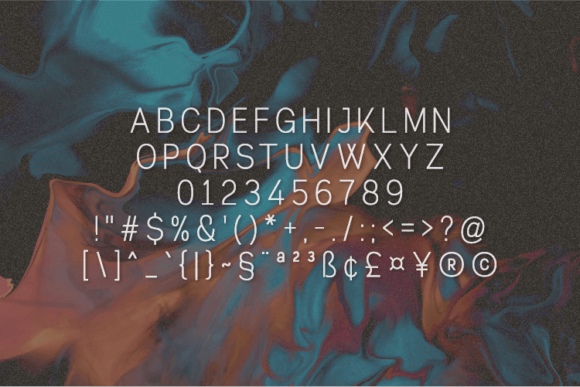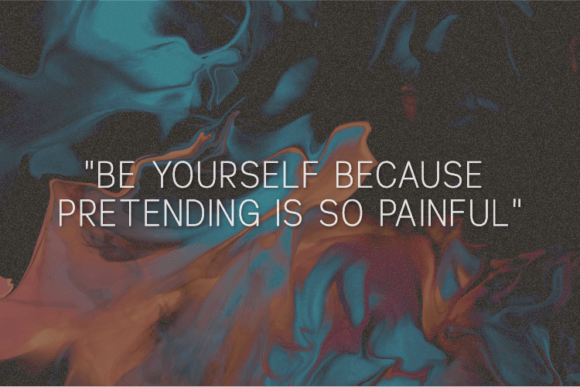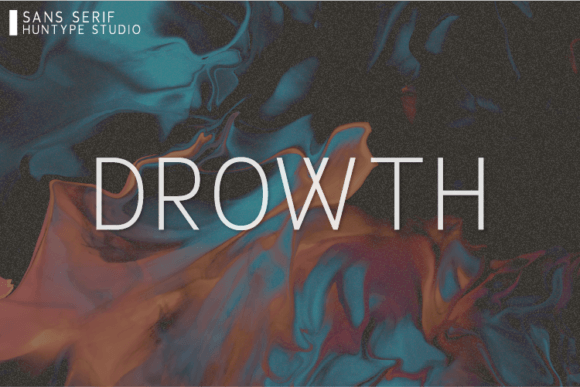
Drowth Font: The Ultimate Sans Serif for Designers and Crafters
In the world of typography, a good font can make all the difference in the success of a design project. For designers and crafters, finding the perfect font that is both versatile and visually appealing can be a daunting task. However, if you’re looking for a font that checks all the right boxes, look no further than Drowth Font. In this article, we’ll dive into the features and benefits of Drowth, and explore why it’s becoming a go-to choice for designers and crafters alike.
What is Drowth Font?
Drowth is an all-caps sans serif font that boasts a unique combination of smooth and clean lines, with just a touch of contrast. This font is designed to be highly versatile, making it suitable for a wide range of applications, from logos and branding to web headings and more. Whether you’re working on a corporate identity project or a personal crafting project, Drowth is sure to impress.
Key Features of Drowth Font
So, what makes Drowth so special? Here are just a few of its key features:
- All-caps design: Drowth is an all-caps font, which gives it a strong and confident look that’s perfect for headlines and titles.
- Sans serif style: The sans serif style of Drowth gives it a clean and modern look that’s perfect for digital applications.
- Smooth and clean lines: The smooth and clean lines of Drowth make it easy to read, even at small sizes.
- Touch of contrast: The subtle contrast in Drowth adds depth and visual interest, making it more engaging than a traditional sans serif font.
Benefits of Using Drowth Font
So, why should you choose Drowth for your next design project? Here are just a few benefits of using this versatile font:
- Versatility: Drowth can be used in a wide range of applications, from logos and branding to web headings and more.
- Legibility: The clean and simple design of Drowth makes it easy to read, even at small sizes.
- Professional look: Drowth has a professional and polished look that’s perfect for corporate identity projects.
- Easy to pair: Drowth pairs well with a wide range of fonts, making it easy to use in combination with other typefaces.
How to Use Drowth Font
So, how can you use Drowth in your design projects? Here are a few ideas to get you started:
- Logos and branding: Use Drowth as a standalone font for logos and branding, or pair it with other fonts for a unique look.
- Web headings: Drowth is perfect for web headings, where its clean and simple design can help to create a clear visual hierarchy.
- Print design: Drowth can also be used in print design, where its smooth and clean lines can help to create a professional and polished look.
In conclusion, Drowth Font is a versatile and visually appealing sans serif font that’s perfect for designers and crafters. With its smooth and clean lines, touch of contrast, and all-caps design, Drowth is sure to make a statement in any design project. Whether you’re working on a corporate identity project or a personal crafting project, Drowth is a great choice for anyone looking for a professional and polished look.
Tips for Using Drowth Font
Here are a few final tips for using Drowth in your design projects:
- Experiment with different sizes: Drowth looks great at a wide range of sizes, so don’t be afraid to experiment with different sizes to find the one that works best for your project.
- Pair it with other fonts: Drowth pairs well with a wide range of fonts, so try pairing it with other typefaces to create a unique look.
- Use it consistently: To get the most out of Drowth, use it consistently throughout your design project. This will help to create a cohesive and professional look.